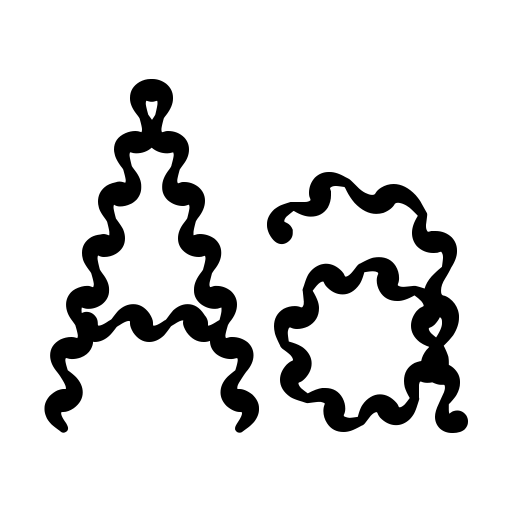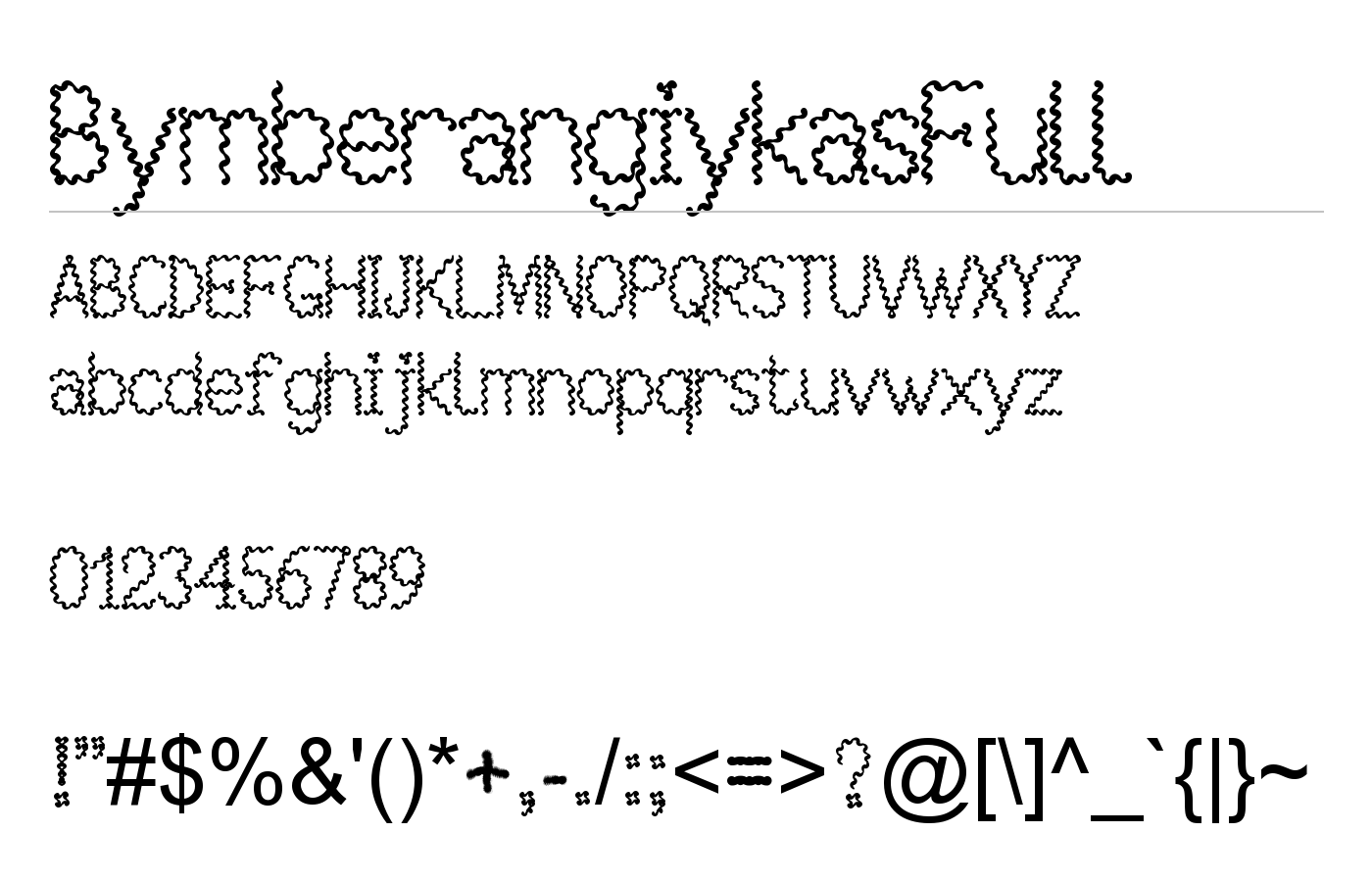
BymberangiykasFull is a playful and decorative sans serif font characterized by its unique wavy, zigzag strokes that create a bubbly, textured effect. Its light weight and consistent stroke give it a lively and informal feel, making it ideal for creative, fun designs that need a distinct and eye-catching style. This font works great for logos, posters, and branding projects where a quirky, energetic personality is desired.
BymberangiykasFull Font
Designed by Lab-room for viper78 Clerical Office - viper78 aka Vlad Viperov, Volgograd 2014
About BymberangiykasFull Font
| Font family | BymberangiykasFull Font |
| Languages supported | Latin, Arabic, Symbols, Cyrillic |
| Release date | 2015-03-30 |
| Designer | Lab-room for viper78 Clerical Office - viper78 aka Vlad Viperov, Volgograd 2014 |